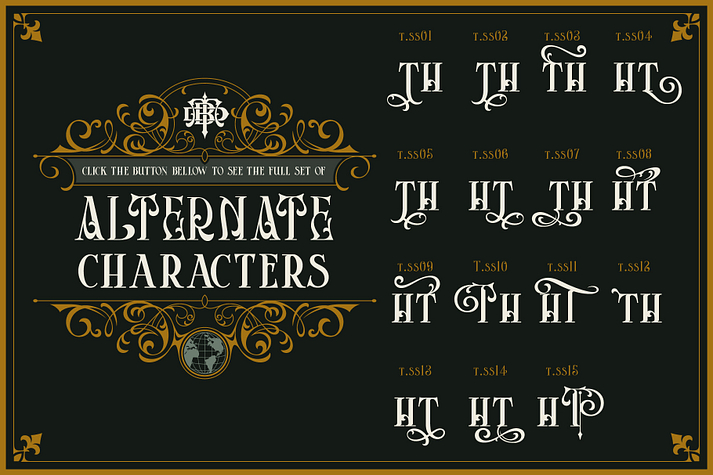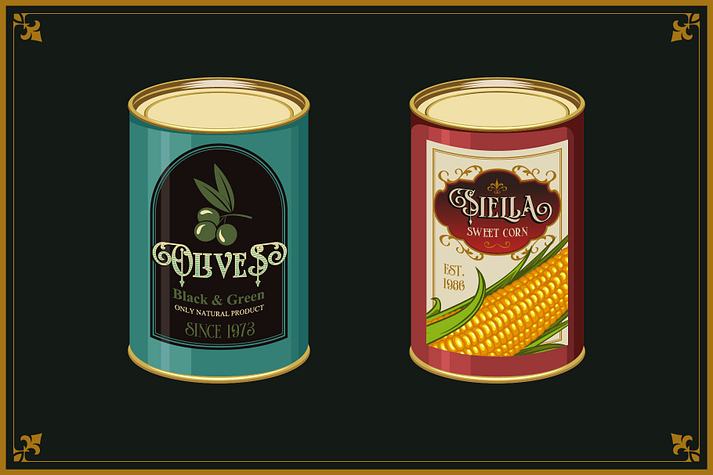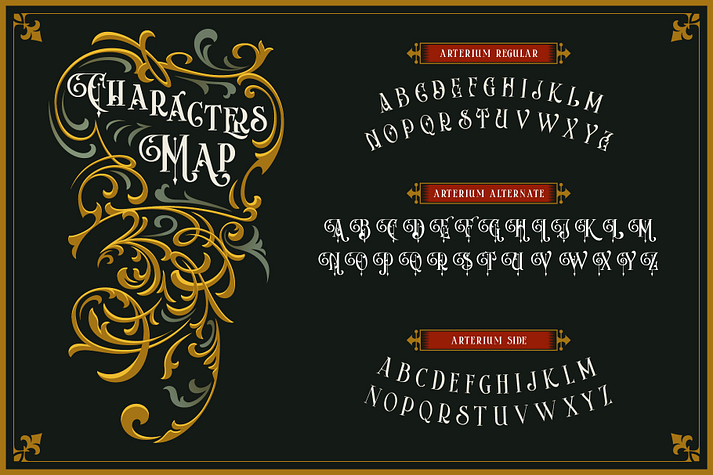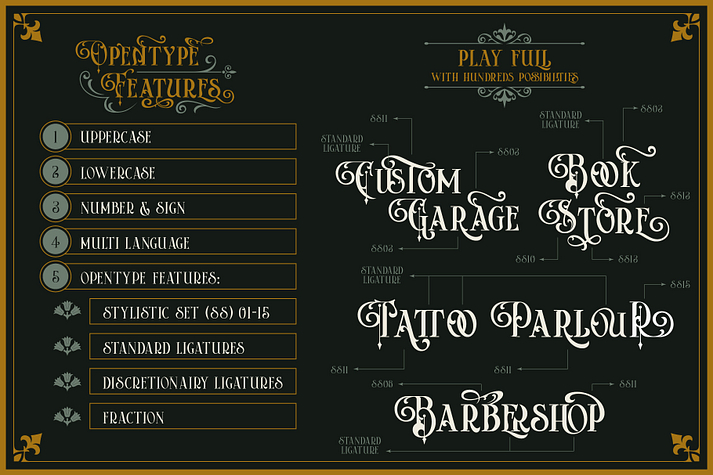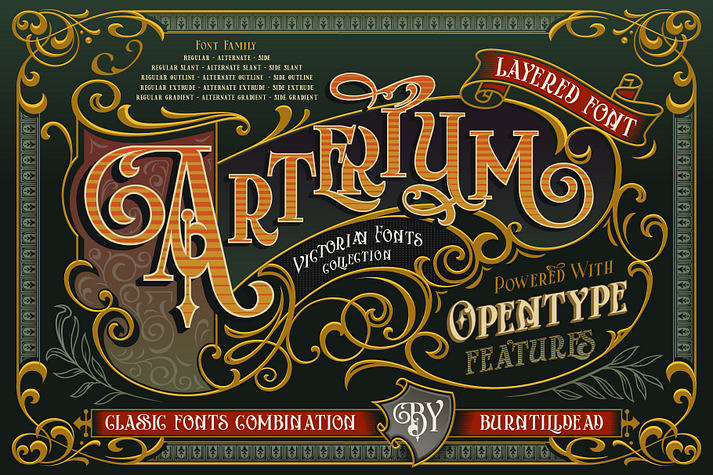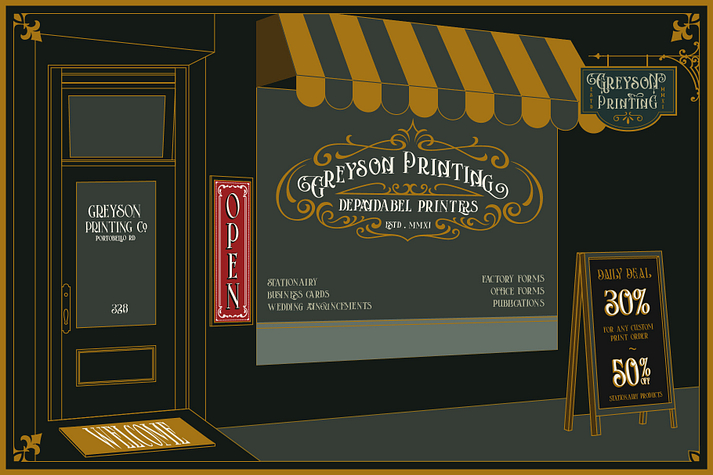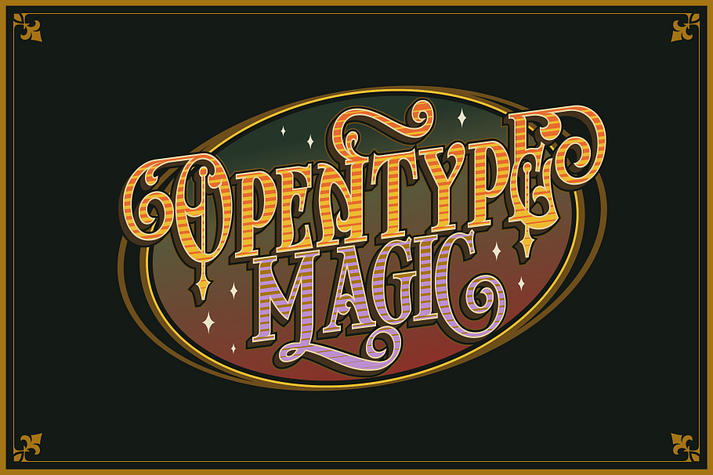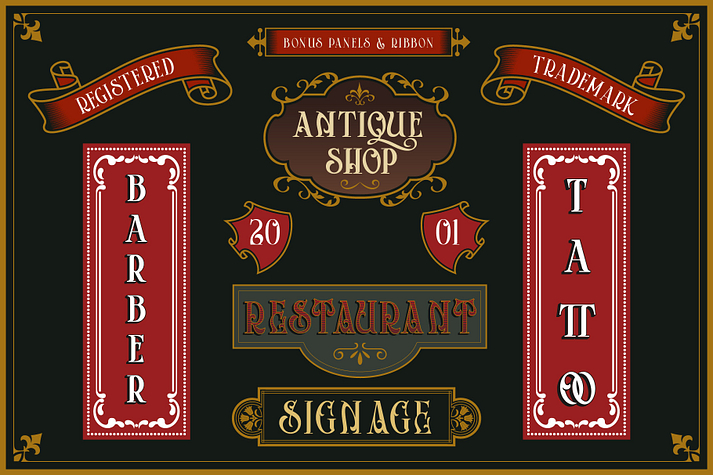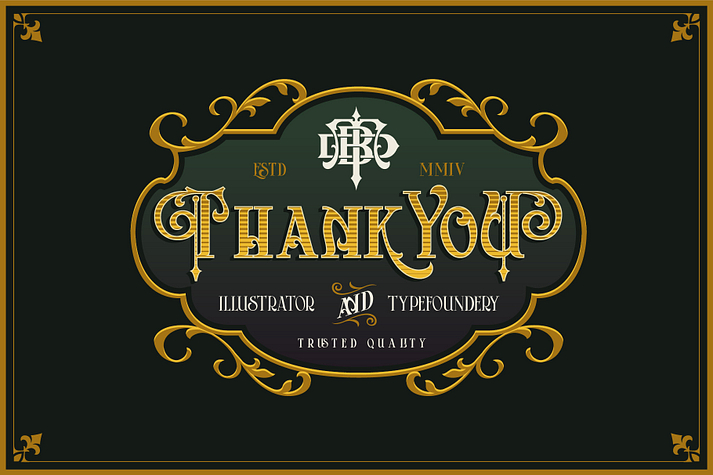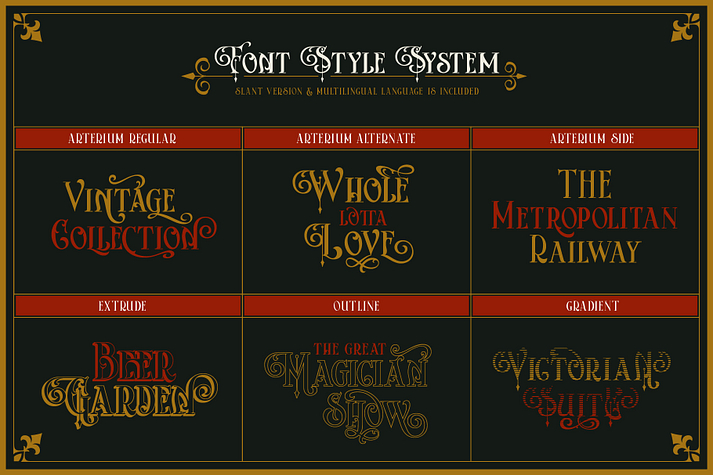
Arterium
Arterium is a display and display serif font family. This typeface has fifteen styles and was published by Burntilldead.
Proudly present “Arterium” the classic Victorian typeface. Inspired by letterheads from the late 1800’s and early 1900’s. Set includes three major styles (Arterium Regular, Arterium Alternate & Arterium Side) and four sub styles version (slant, gradient, outline & extrude).
The font really bring a good statement for your logo design and can be the image of a design.
Arterium font is very unique and easy to apply to any media; t-shirts, posters, sign boards, letterhead and social media needs.
• A-Z Character Set
• a-z Characters set
• Numerals & Punctuations (OpenType Standard)
• ligature
• fraction
• Stylistic Alternates (01-15)
• Multilingual